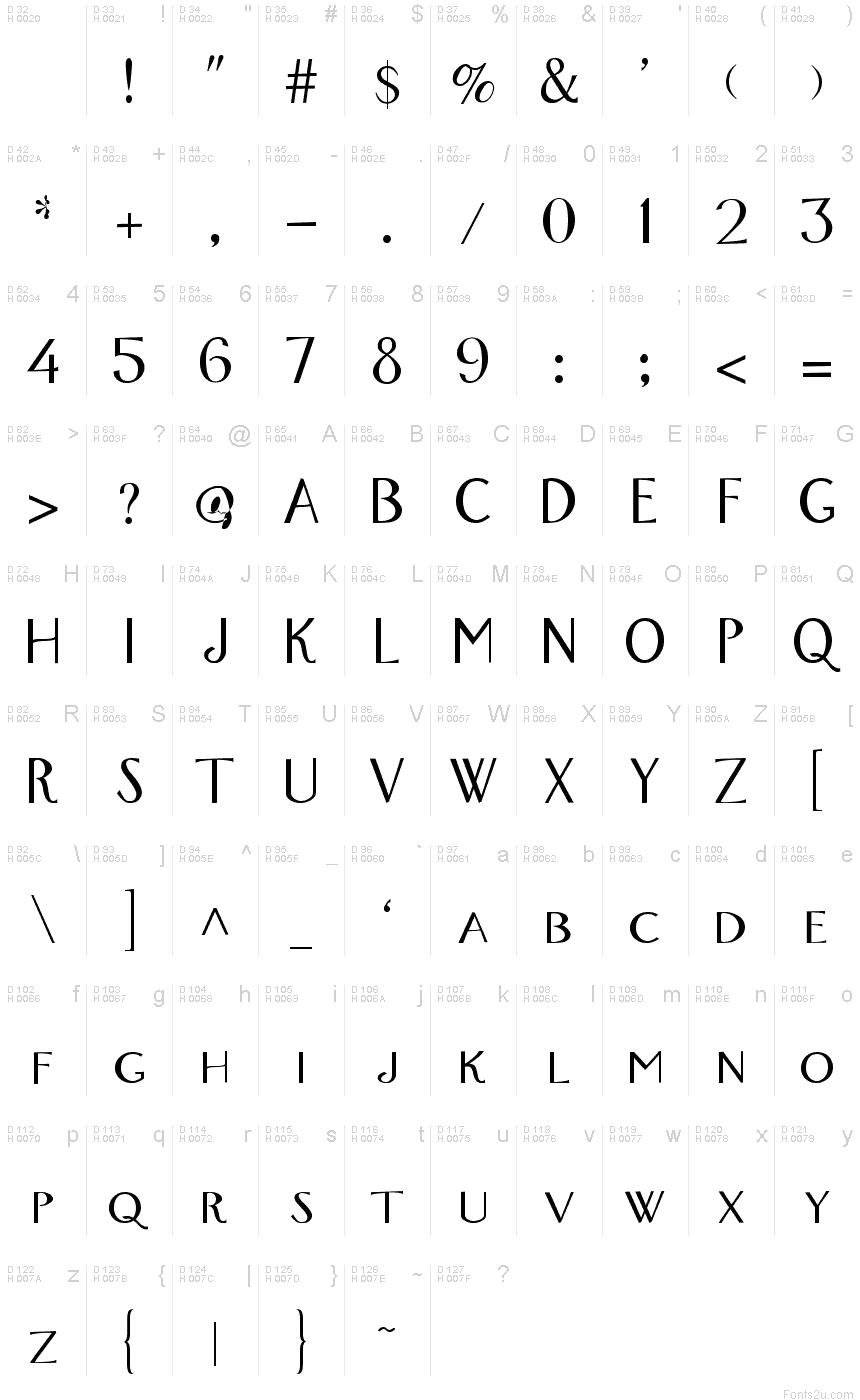
Orlando is a free high-contrast serif display font with the poise of fashion mastheads. Its tall capitals shift sharply from broad curves to hairline strokes, giving the lettering a crisp, sculpted silhouette. Generous proportions and restrained details keep the design elegant rather than ornate.
Its classic editorial style makes it especially suited to fashion magazines and cultural event posters. The same refined shapes can lend perfume packaging or boutique branding a formal, upscale voice. Across these settings, the pronounced stroke contrast supplies a shared sense of ceremony and polish.
Orlando